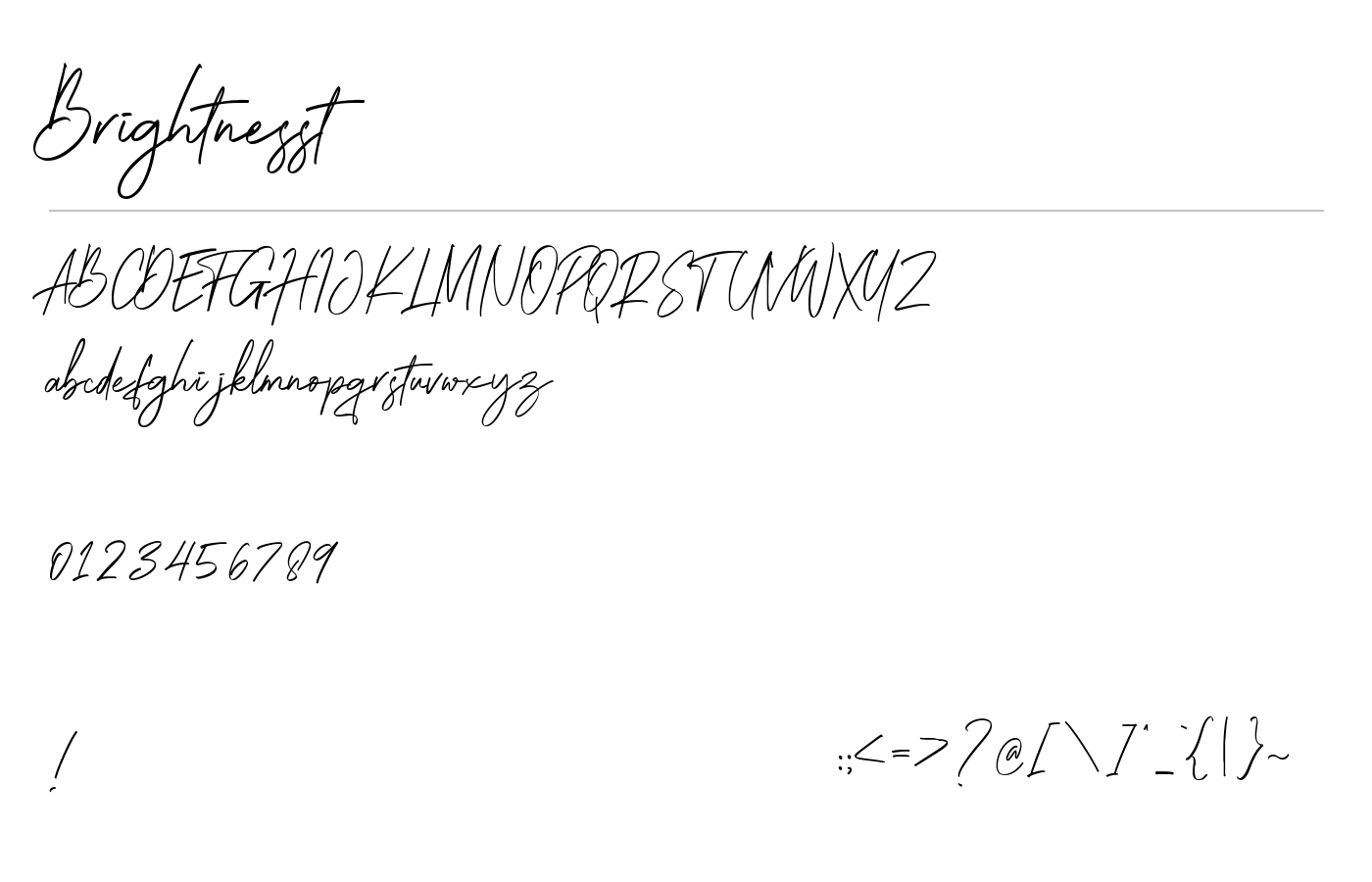
Brightness is a delicate, modern script font characterized by its slender, flowing strokes and casual handwritten style. Its light weight and high x-height create an airy, elegant feel, perfect for adding a personal, sophisticated touch to branding, invitations, or editorial headlines. This font works best where a refined yet approachable look is desired, combining style with legibility in a charming, effortless way.
Brightness Font
About Brightness Font